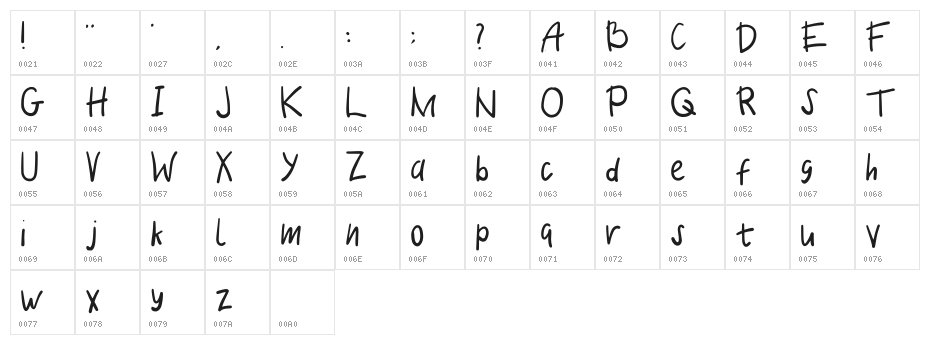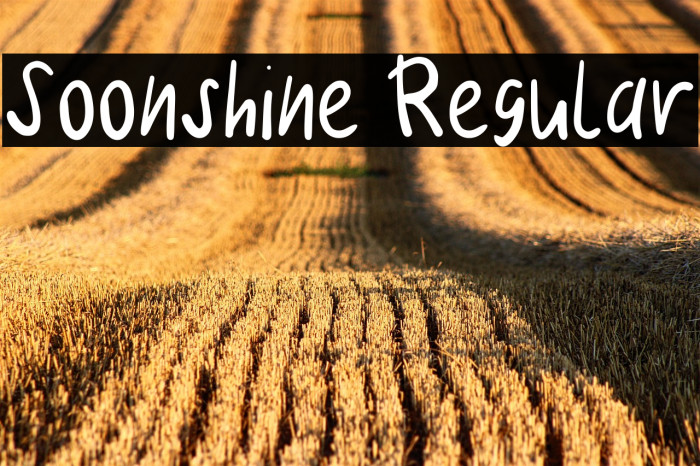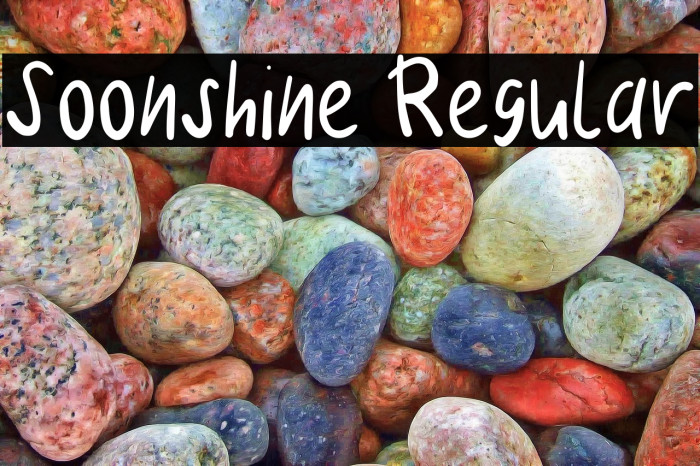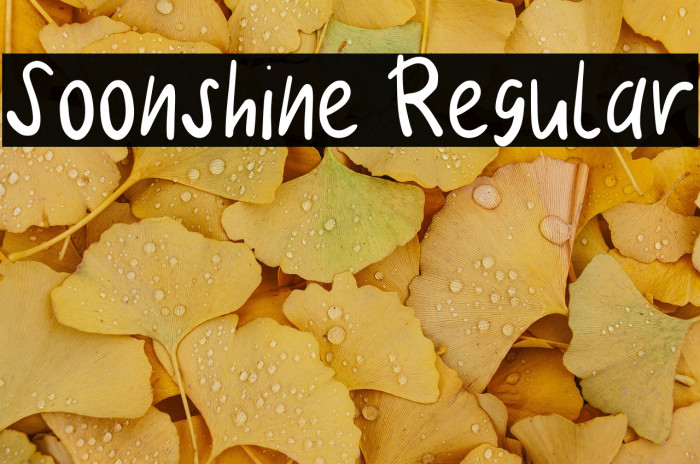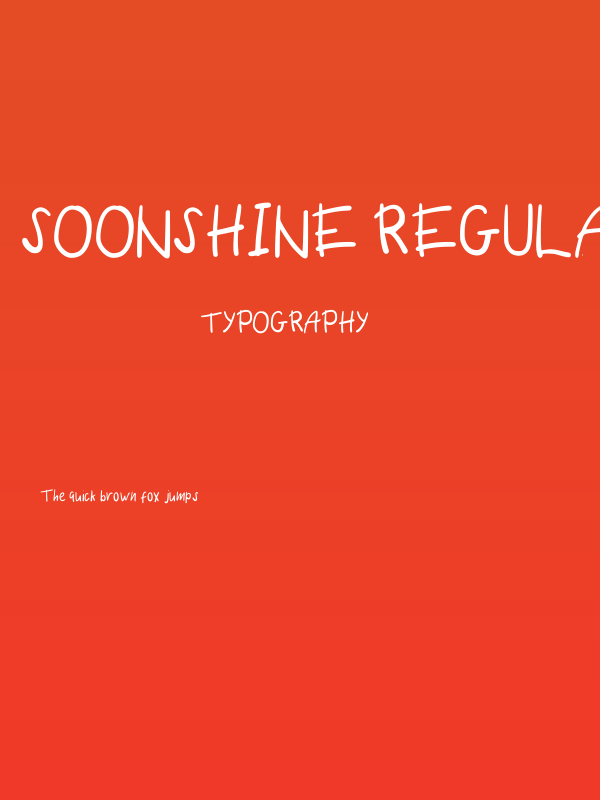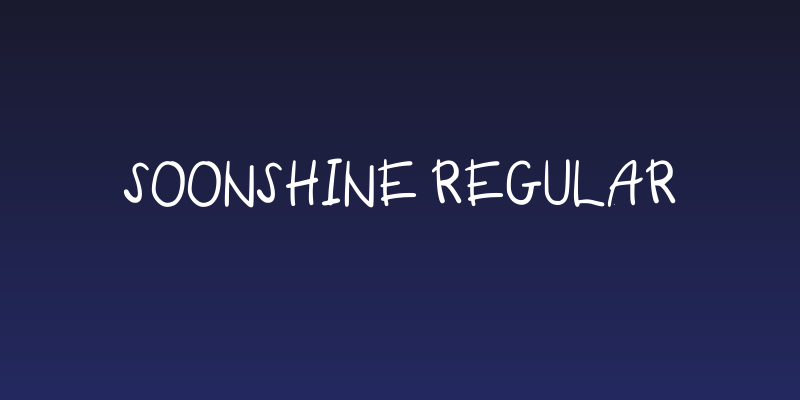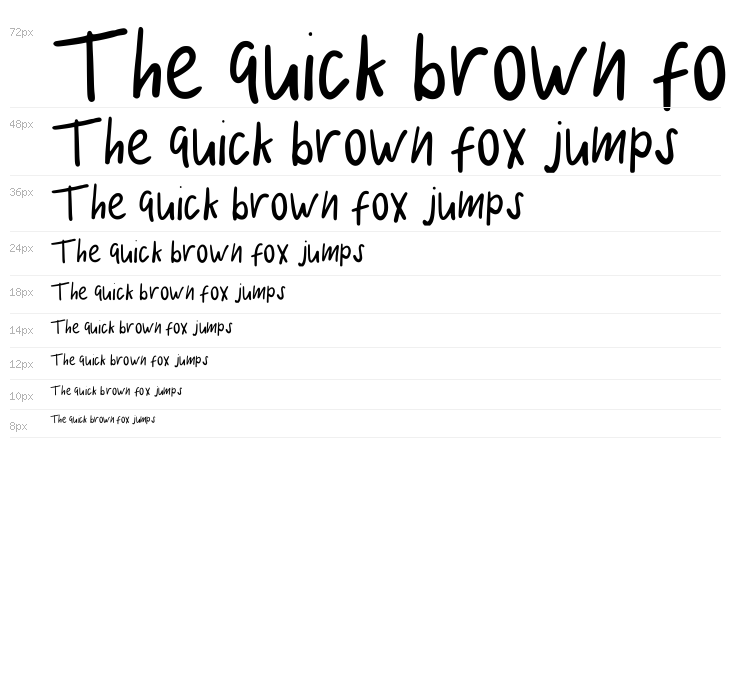
Soonshine Regular Font
Soonshine Regular Description
This font exudes a playful and informal vibe, characterized by its handwritten style that mimics casual penmanship. The letters are slightly irregular, adding to its charm and approachability. The strokes are consistent in width, giving it a balanced appearance. The uppercase and lowercase letters are well-proportioned, with a slight slant that enhances its dynamic feel. The numerals and special characters maintain the same playful aesthetic, making it versatile for various applications. Overall, this font is perfect for projects that require a personal touch.
Overall StyleCasual
Use CaseHeadlines, Informal text, Personal projects
Proposed ProjectsIdeal for greeting cards, children's books, personal blogs, and informal branding.